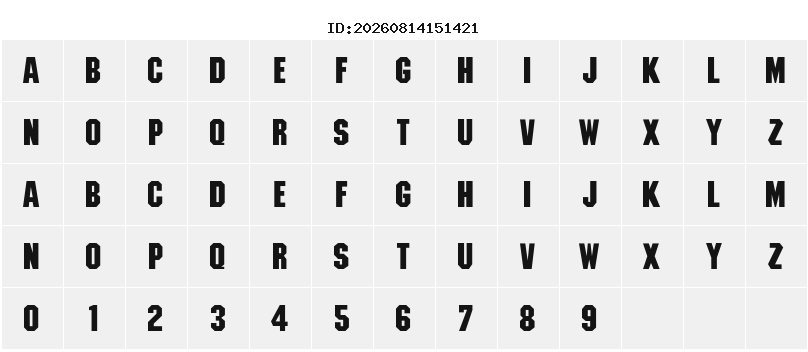
StrathmelliBld.ttf is a modern, elegant sans-serif font designed for ultimate readability and visual harmony. Perfect for branding, headlines, web design, and print materials.